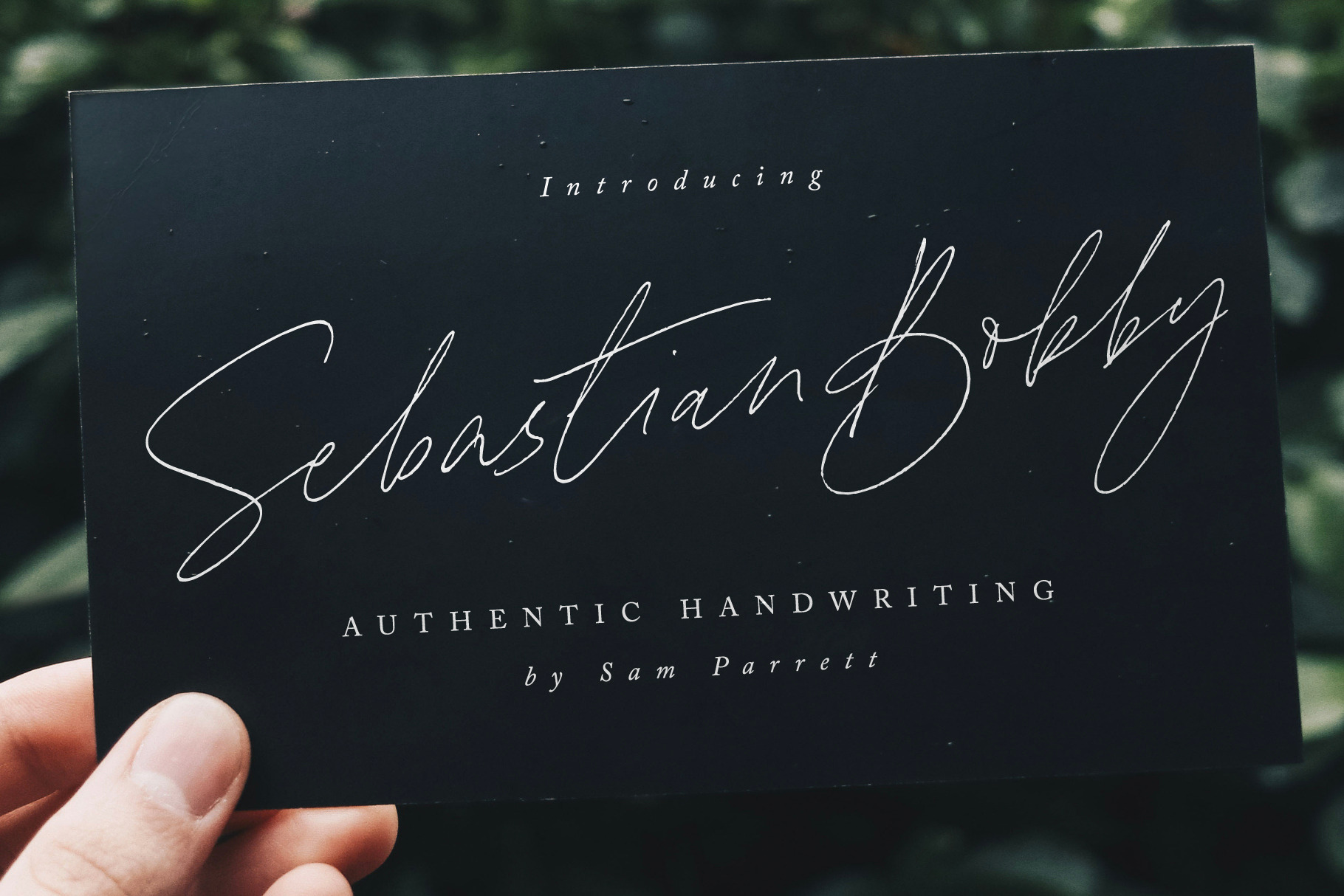
Sebastian Bobby Handwritten Font
Introducing Sebastian Bobby; An authentic & organic hand-drawn script font, crafted using a real fountain pen. This font has been carefully designed to re-create natural handwritten text, and includes 78 custom ligatures to achieve those free flowing pen strokes. Sebastian Bobby lends itself perfectly to handwritten quotes, signature-style logos, stylish branding projects, and hand-crafted product & stationery designs.
Sebastian Bobby • A handwritten script font containing upper & lowercase characters, numerals, and a large range of punctuation.
Sebastian Bobby Alt • This is a second version of Sebastian Bobby, with a completely new set of both upper and lowercase characters. If you wanted to avoid letters looking the same each time to recreate a custom-made style, or try a different word shape, simply switch to this font for an additional layout option.
Slanted Versions • Are included for both regular and alternate fonts. These can be used for a more italicised, fast-hand flow to your text.